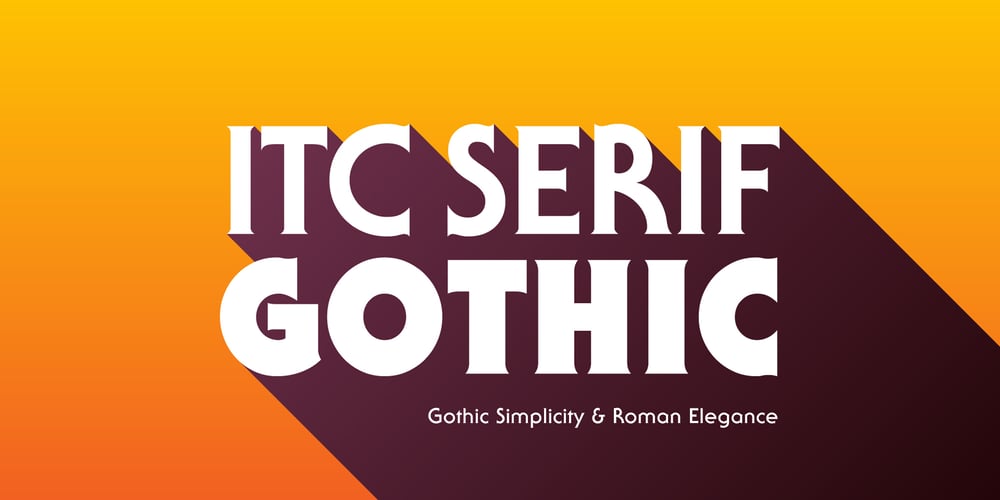
ITC Serif Gothic
ITC Serif Gothic font
ITC Serif Gothic Font Family was designed by Antonio DiSpigna, Herb Lubalin and published by ITC. ITC Serif Gothic contains 6 styles and family package options. ITC Serif Gothic font is the joint effort of Herb Lubalin and Antonio DiSpigna. Its distinguishing feature is its uniquely designed serifs, combining gothic simplicity with traditional roman elegance.